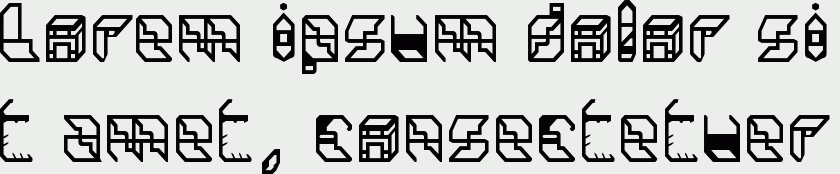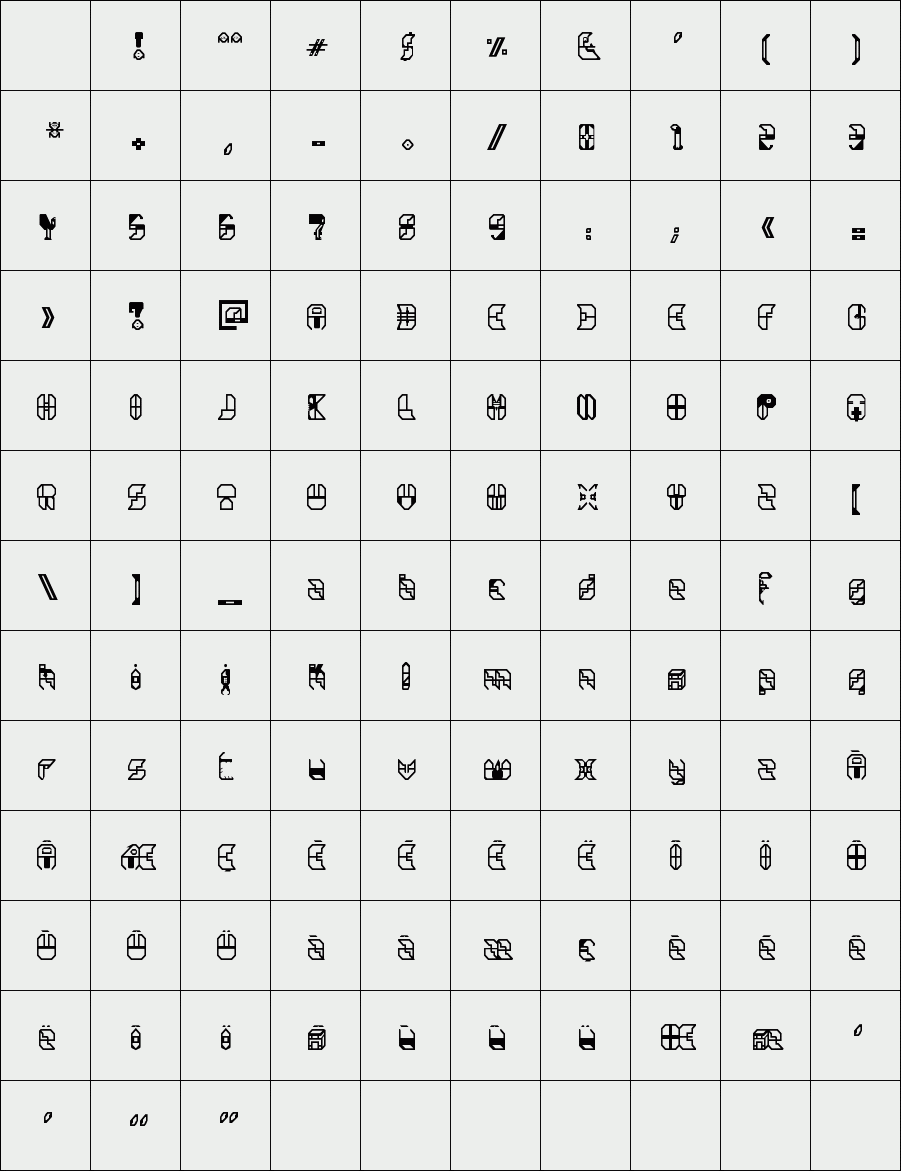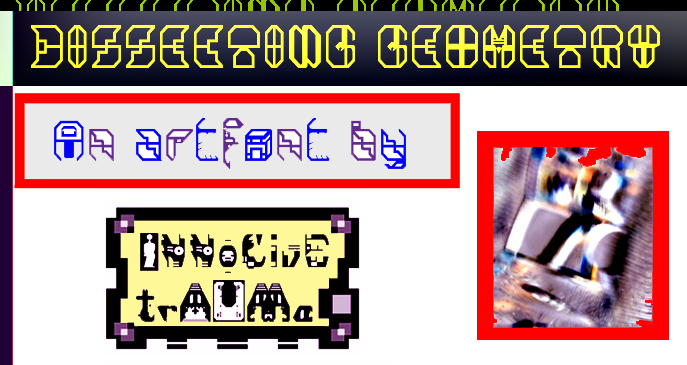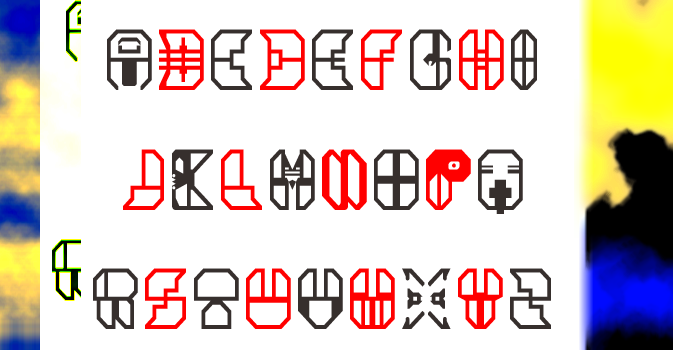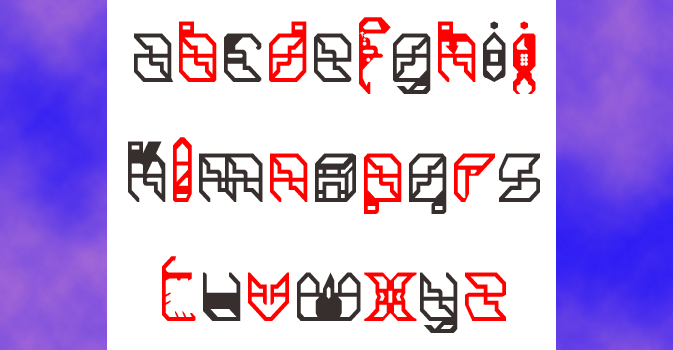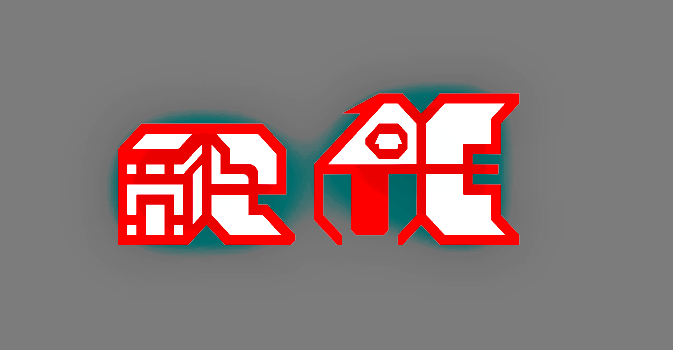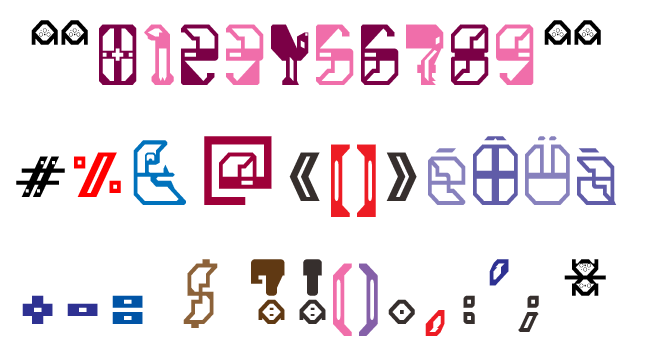
trAUMa 73 / Dissecting Geometry
"Dissecting Geometry", like all the "trAUMa" series, works at the frontier between Art & Type Design, Figuration & Abstraction, each font is a comprehensive world in which every glyph is a "living" entity. But put together they can produce your messages in the most accurate way.